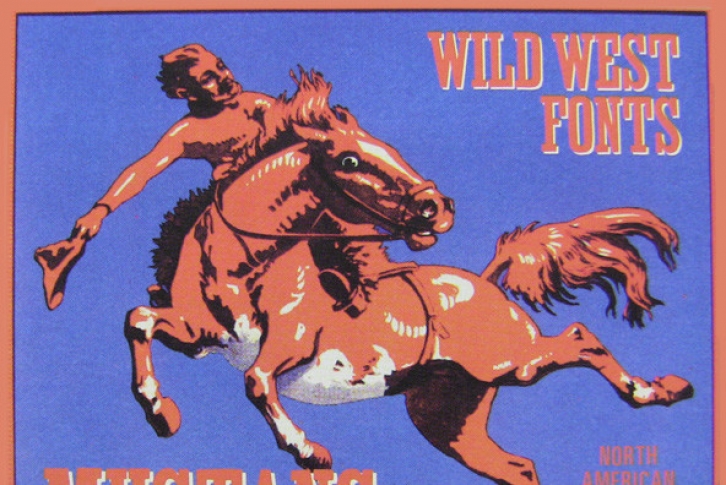
Based on a type style commonly used on advertising and wanted posters of the 1800s.
PERFECT IMPERFECTION
Please note that the rough imperfections and slight misalignments in the Outlawâ„¢ fonts are deliberate. We wanted to create the type of nuances you would expect with the old hot metal type, and which you can see on old Wanted Posters and the advertising of the day.
FULL CHARACTER SET
Each font in the Outlawâ„¢ family has a full character set of 232+ letterforms, with all characters designed in the style of the font.